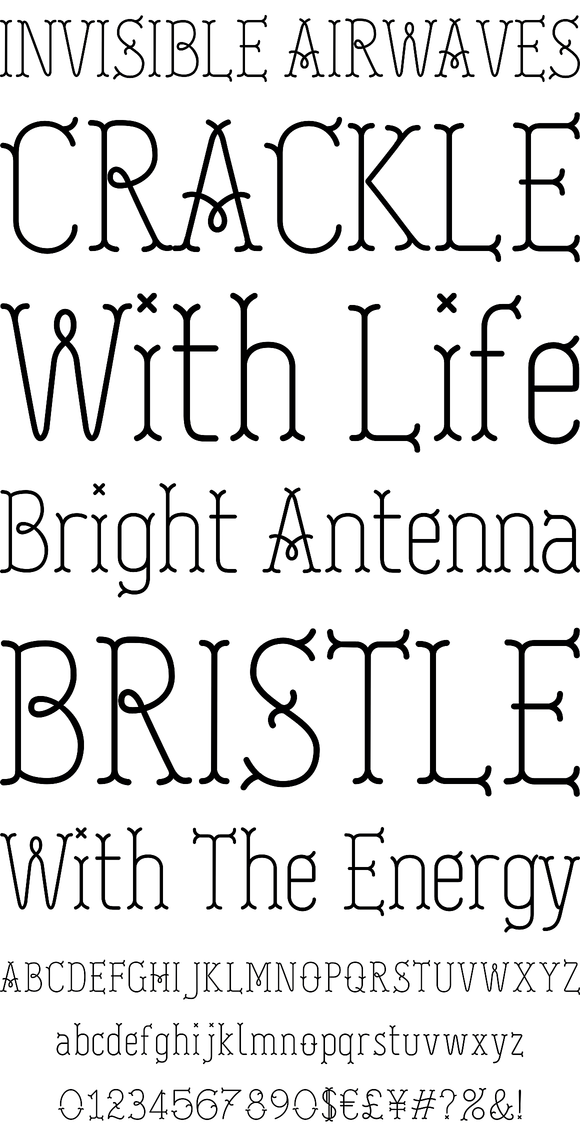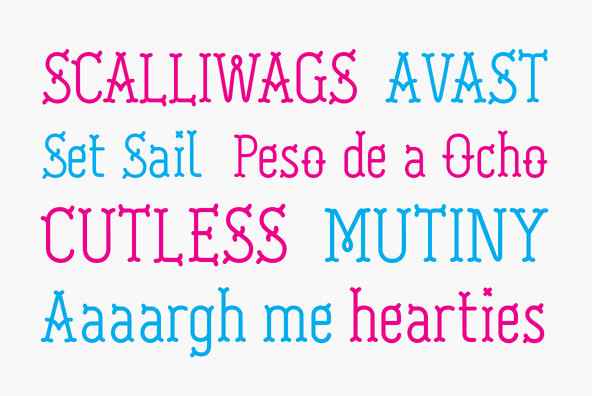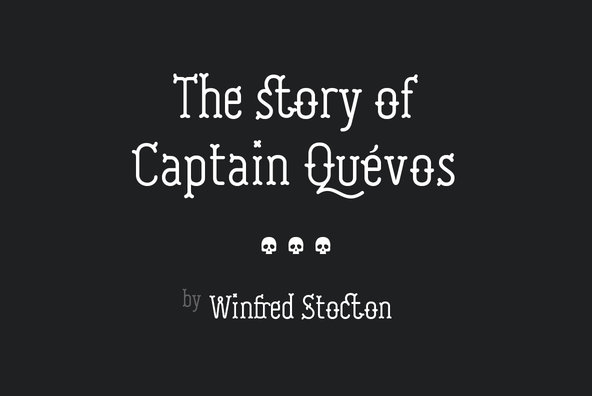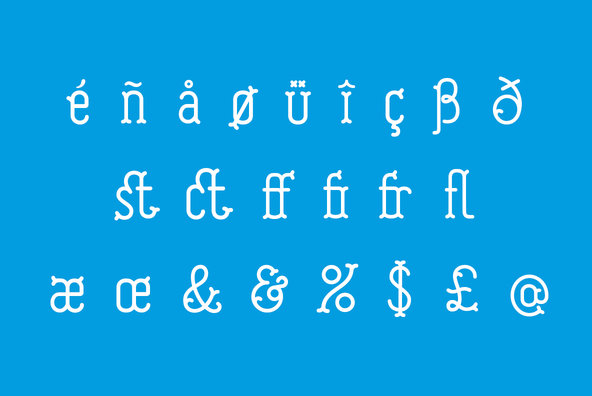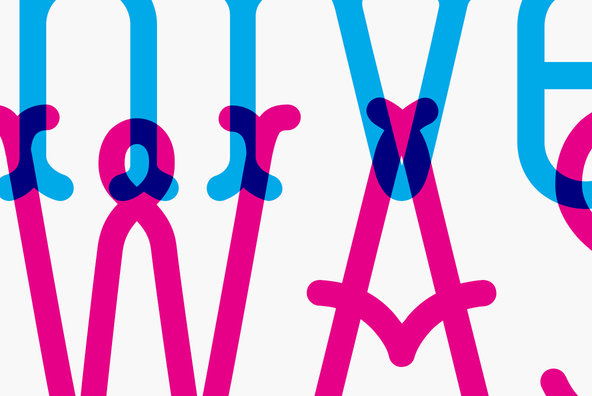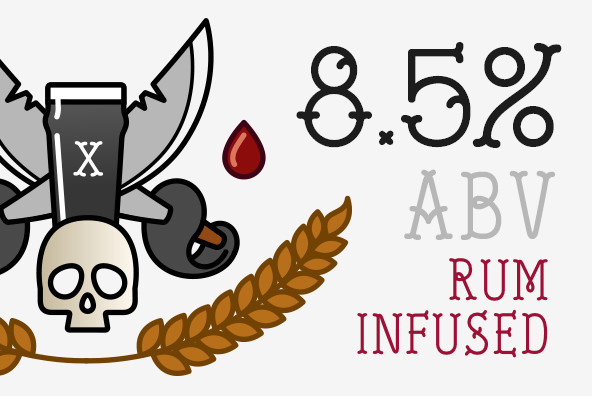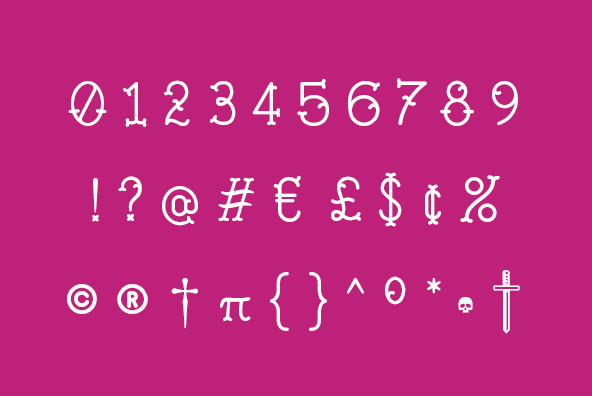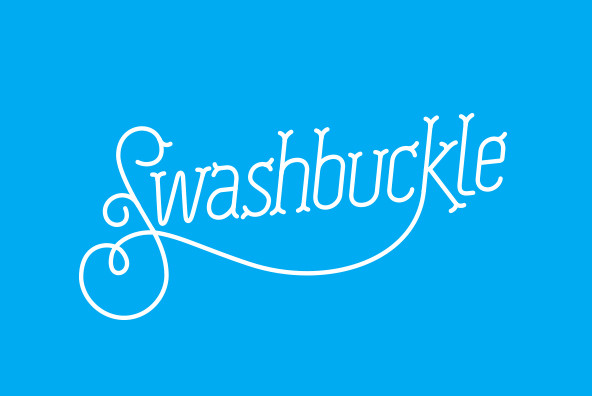
Swashbuckle
Swashbuckle is a playfully versatile, pirate serif. With over 200 characters, custom ligatures and support for multi-languages, Swashbuckle is perfect for headlines, titles or pretty much anything piratey.
Check out the glyphs section to see the selection of stylistic alternates, custom ligatures and multi-lingual characters.
While you can use Swashbuckle for body copy, it might make you feel a bit funny after a while... I would suggest you get yourself some fresh sea breeze and go sail the ocean blue - Avast!